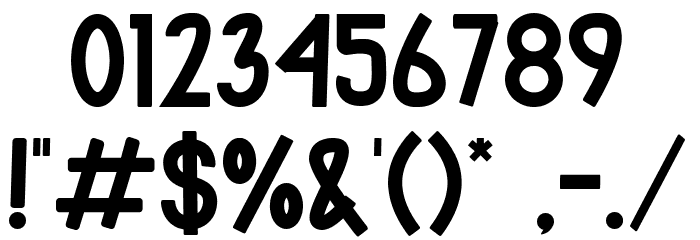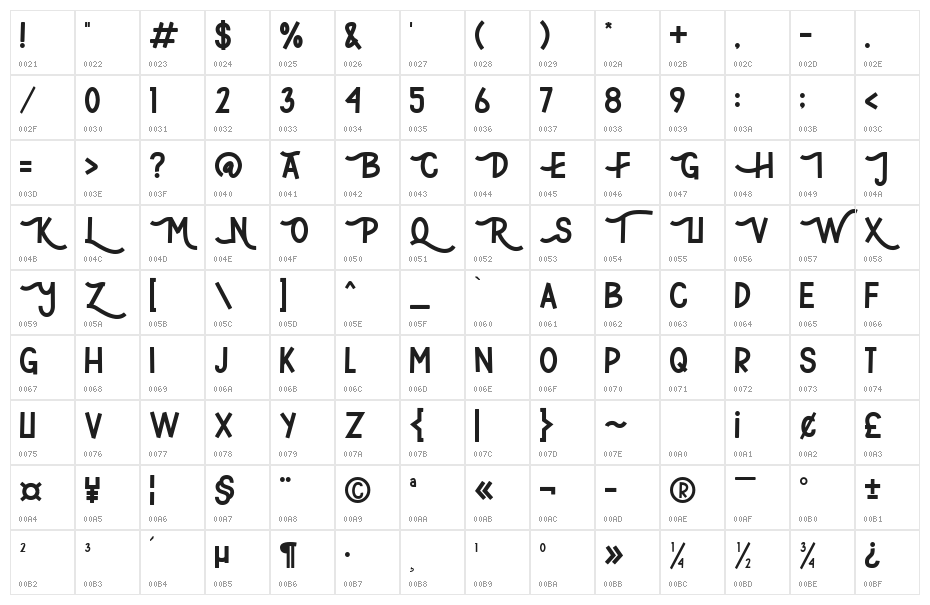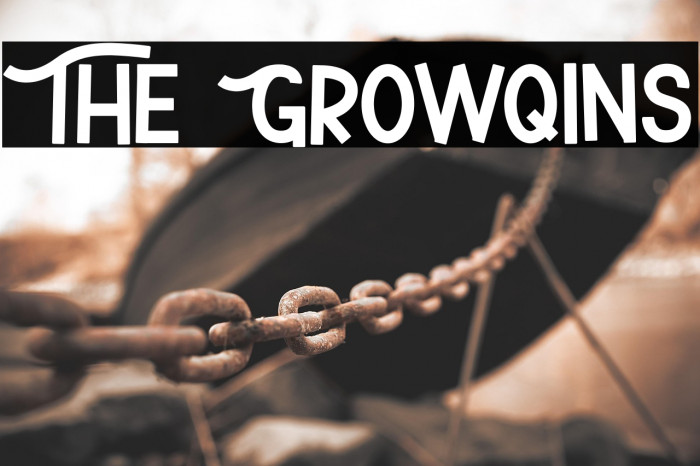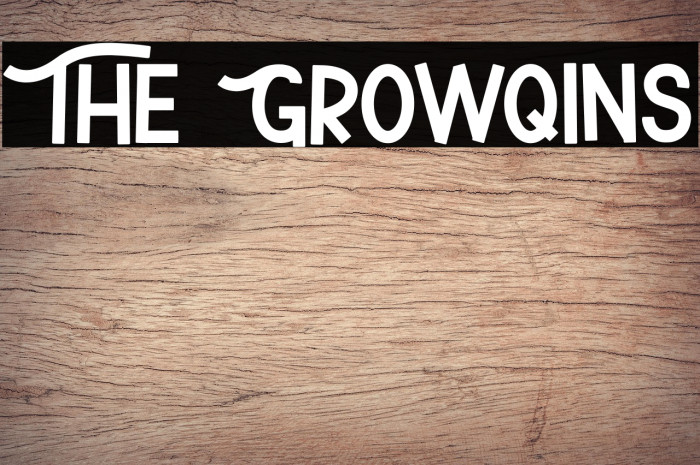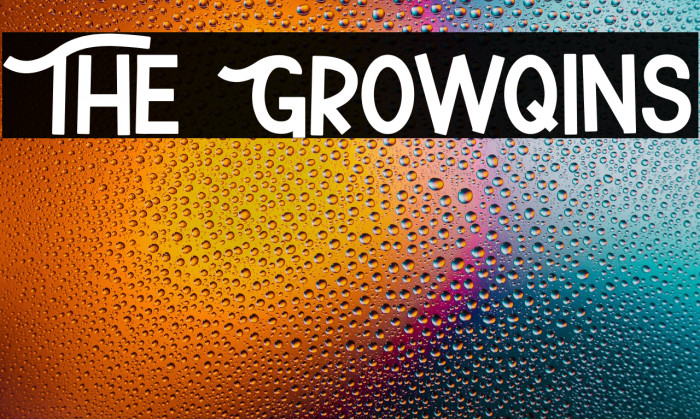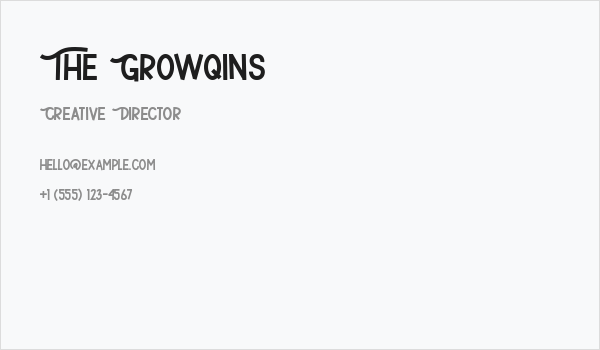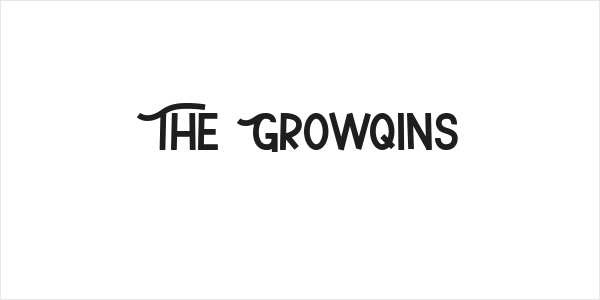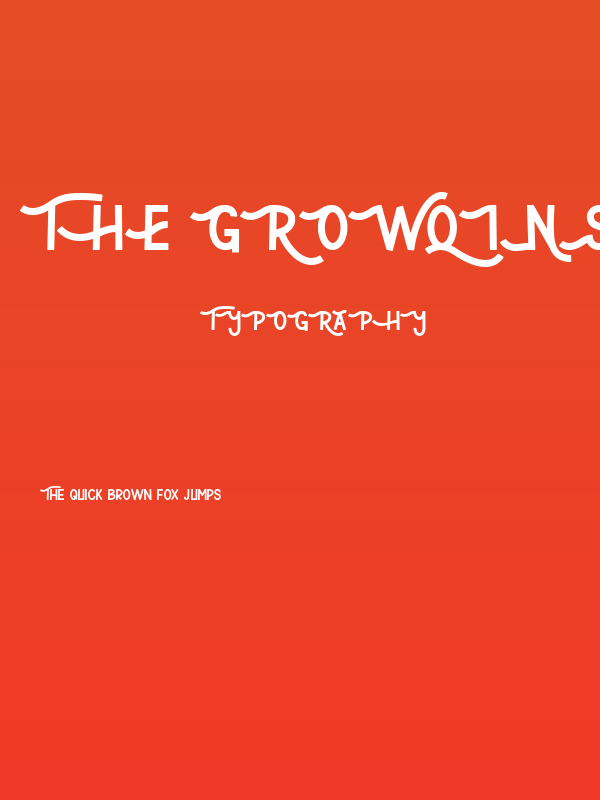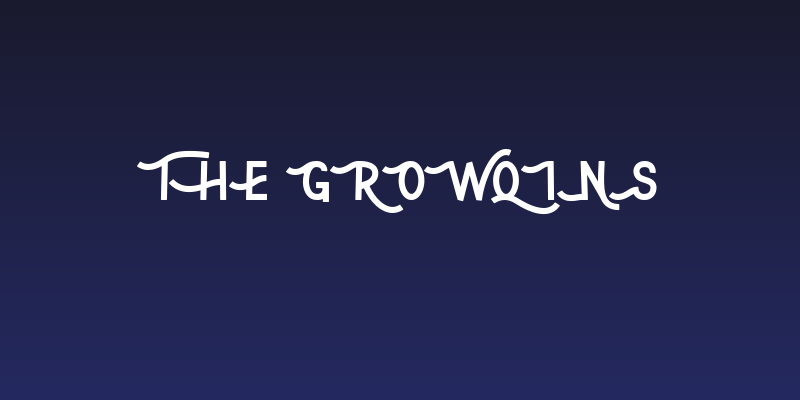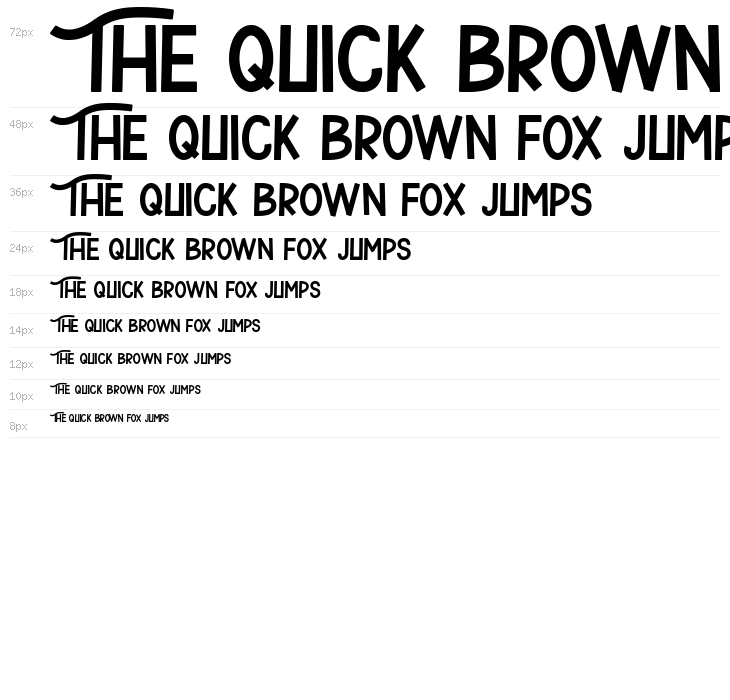
The Growqins Font
The Growqins Description
This font features a playful and whimsical design with a unique combination of script and bold styles. The uppercase letters in the first row exhibit a decorative flair with swirls and curves, adding a sense of movement and creativity. The second row of uppercase letters presents a more straightforward, bold sans-serif style, offering a strong and clear appearance. The numerals are bold and easily readable, maintaining the playful essence of the font. Special characters are included, providing versatility for various uses. The overall design is eye-catching and suitable for projects that require a fun and engaging aesthetic.